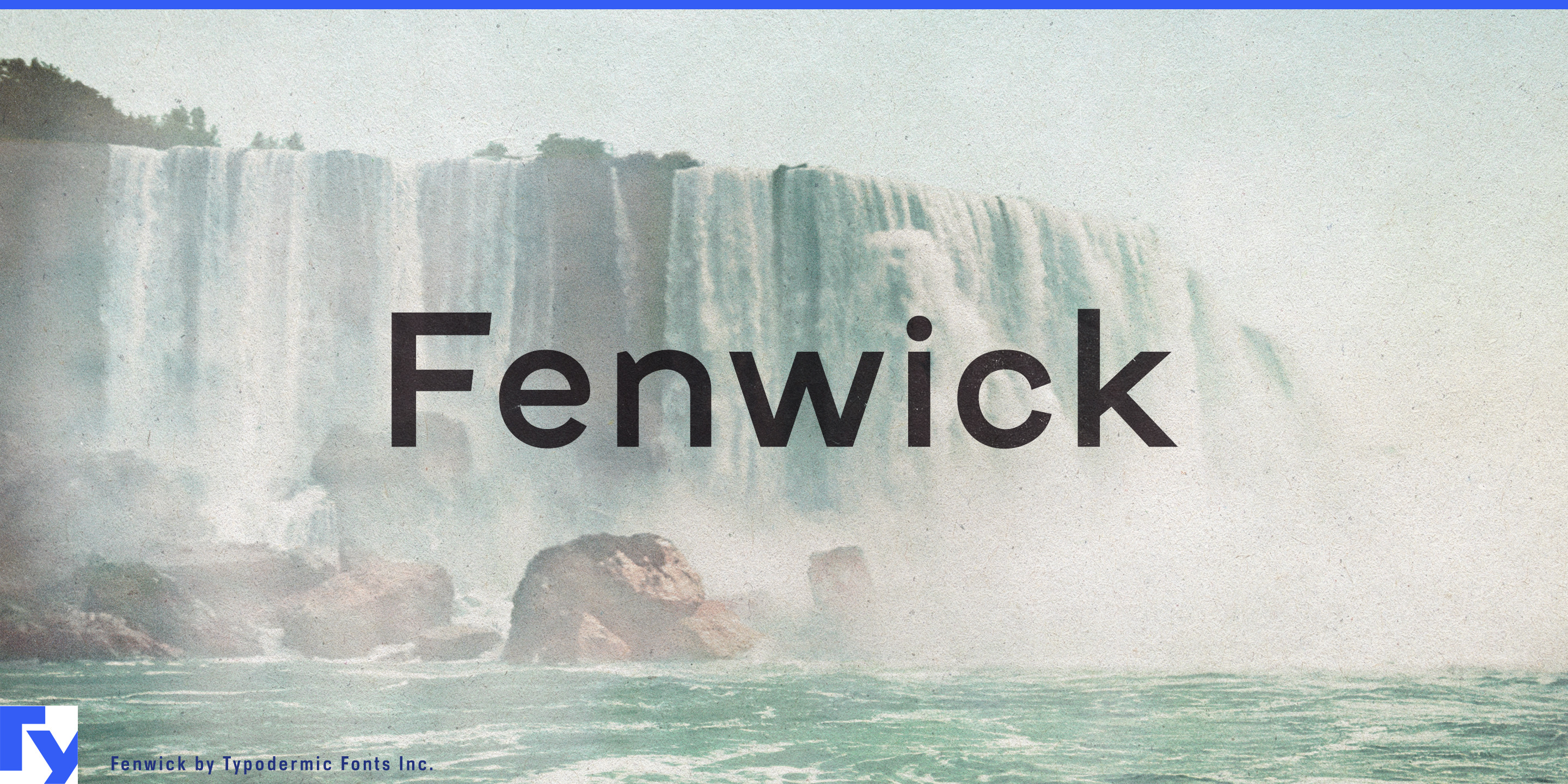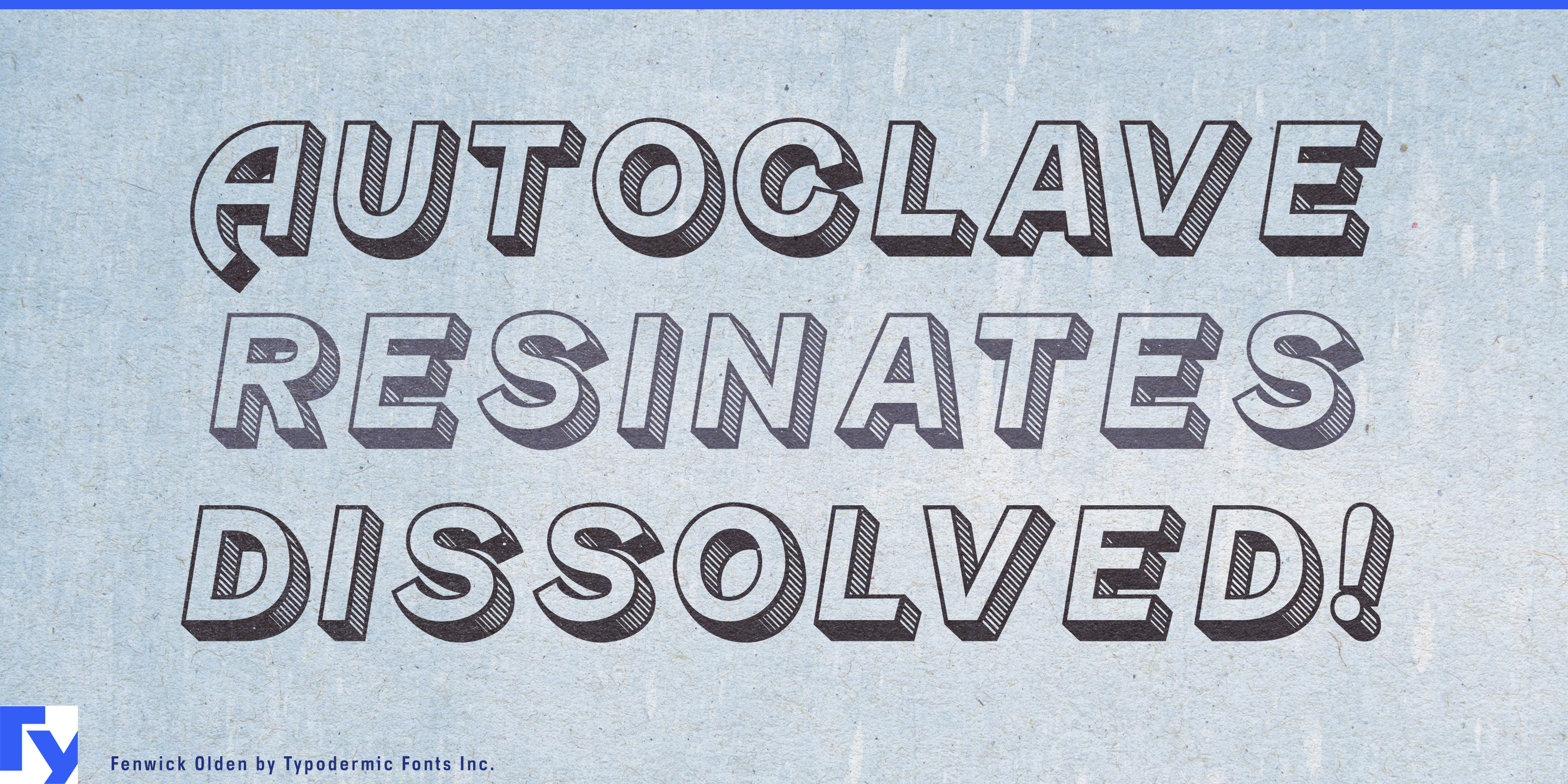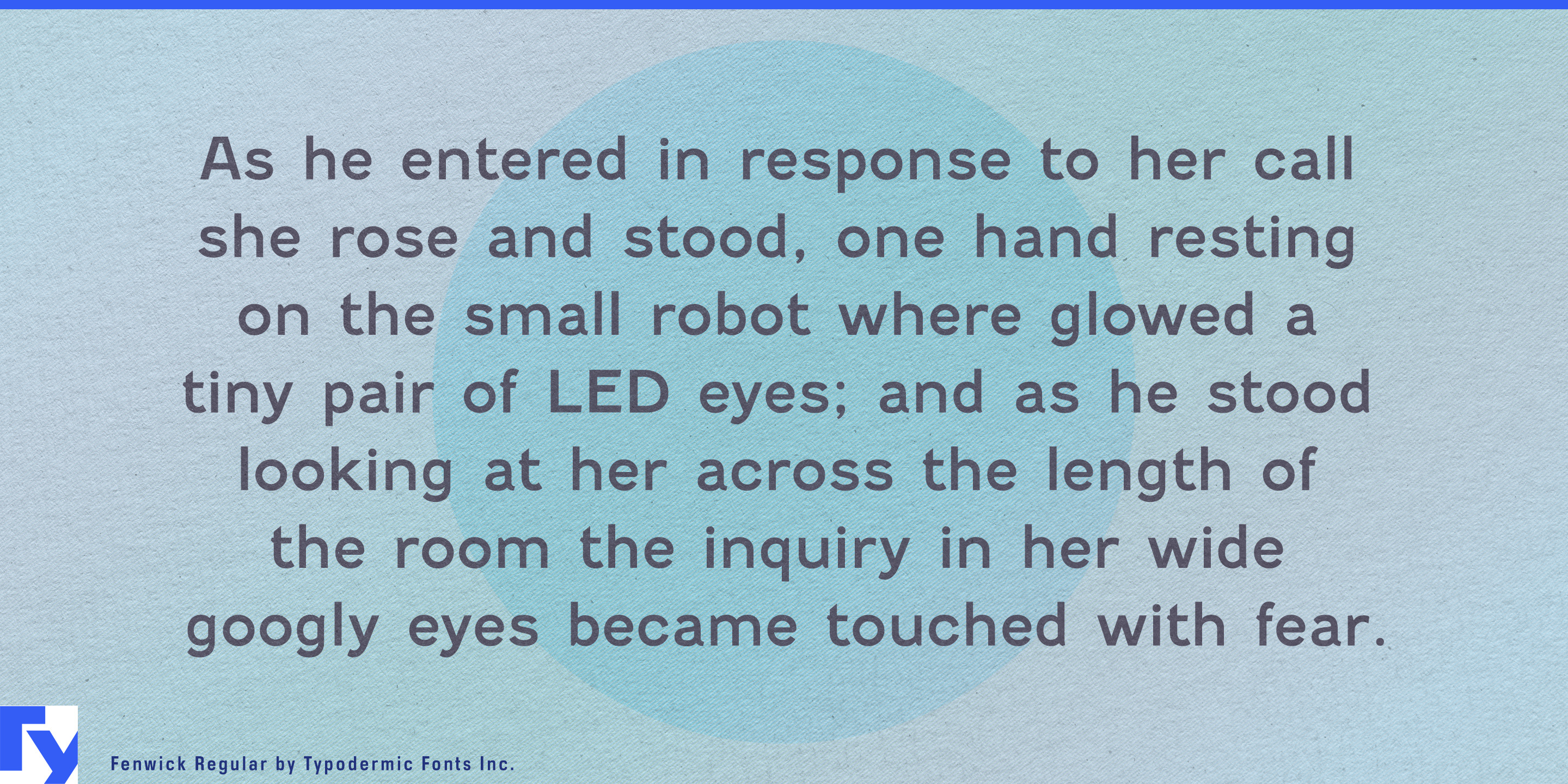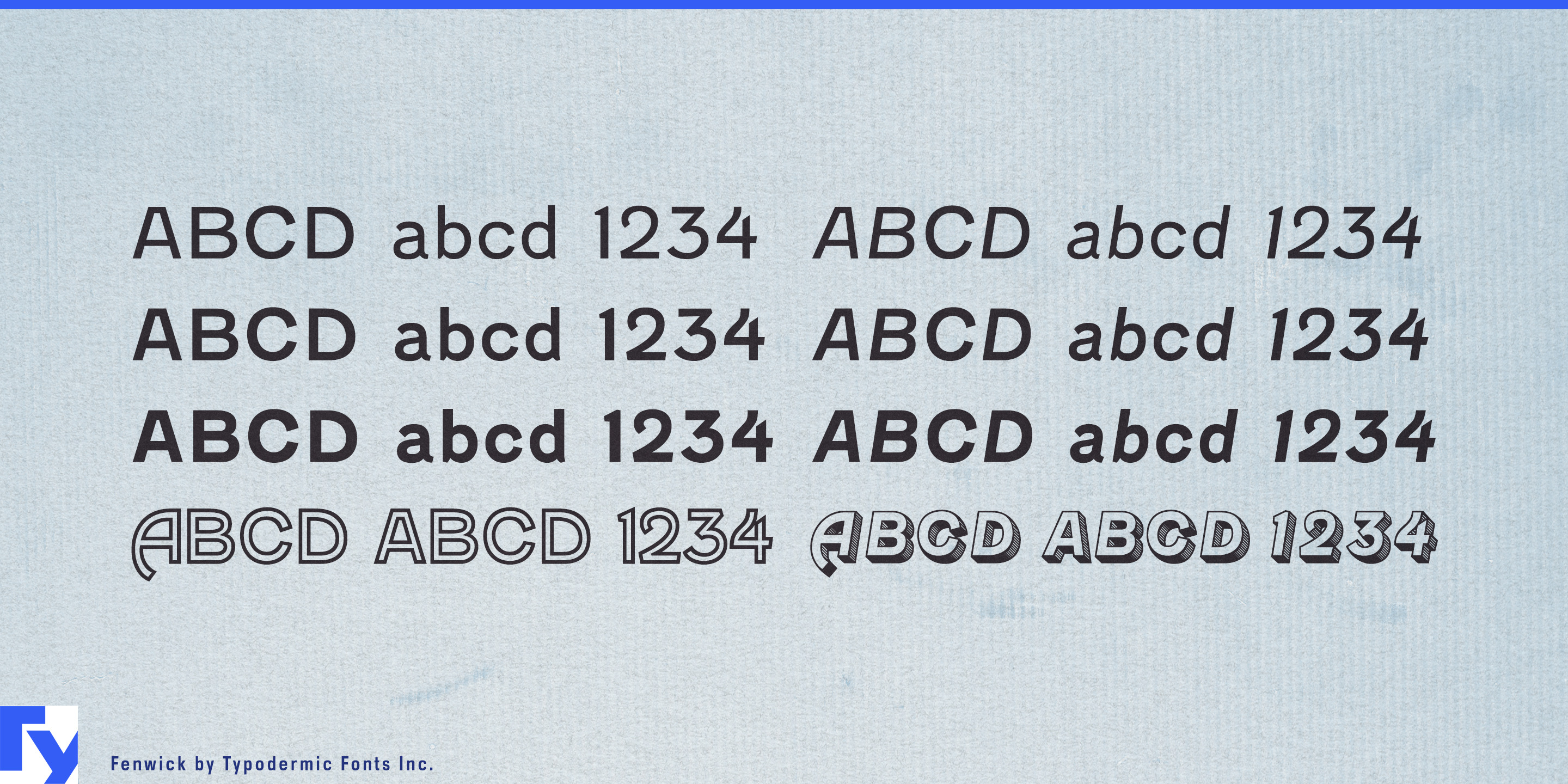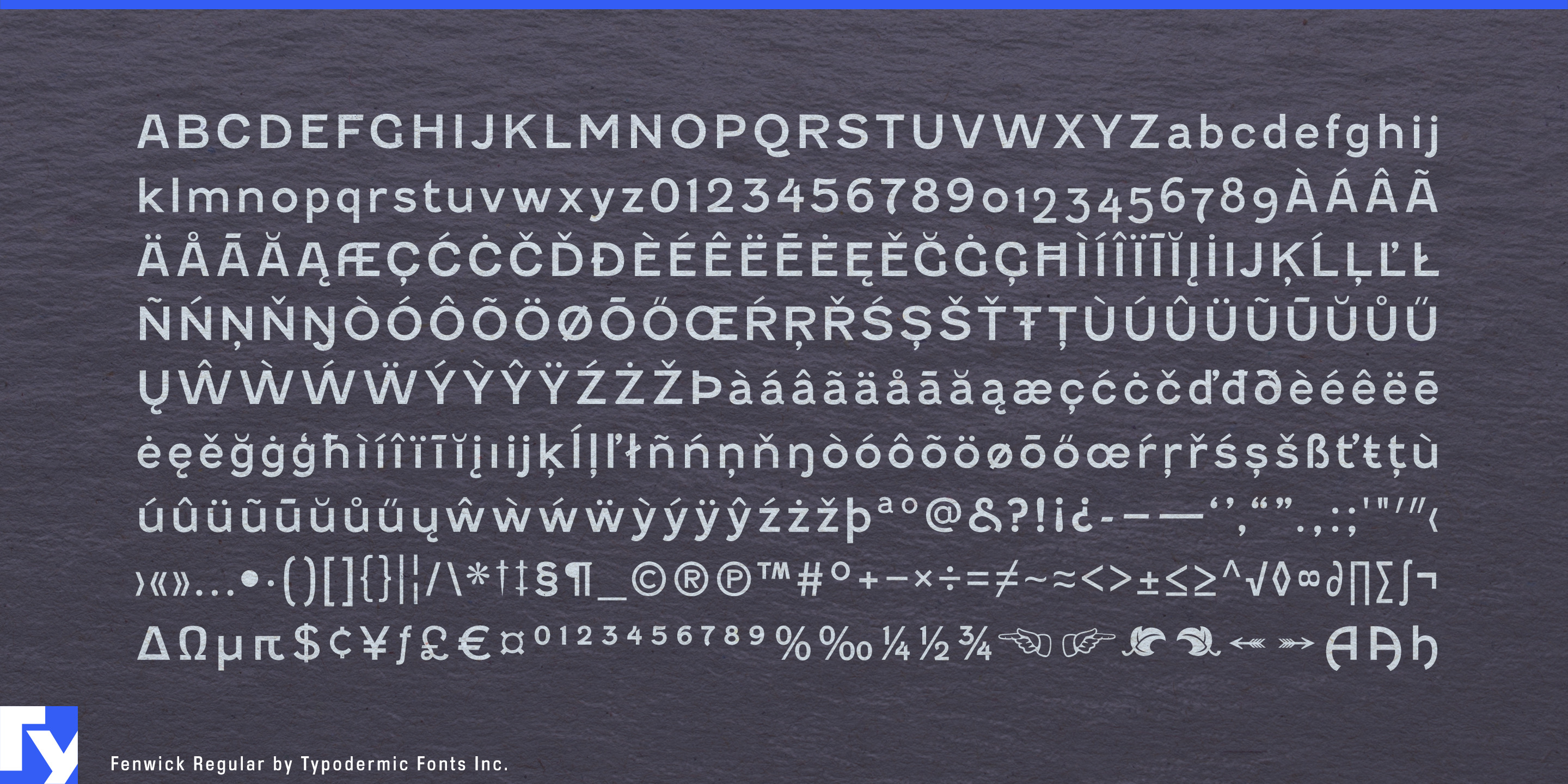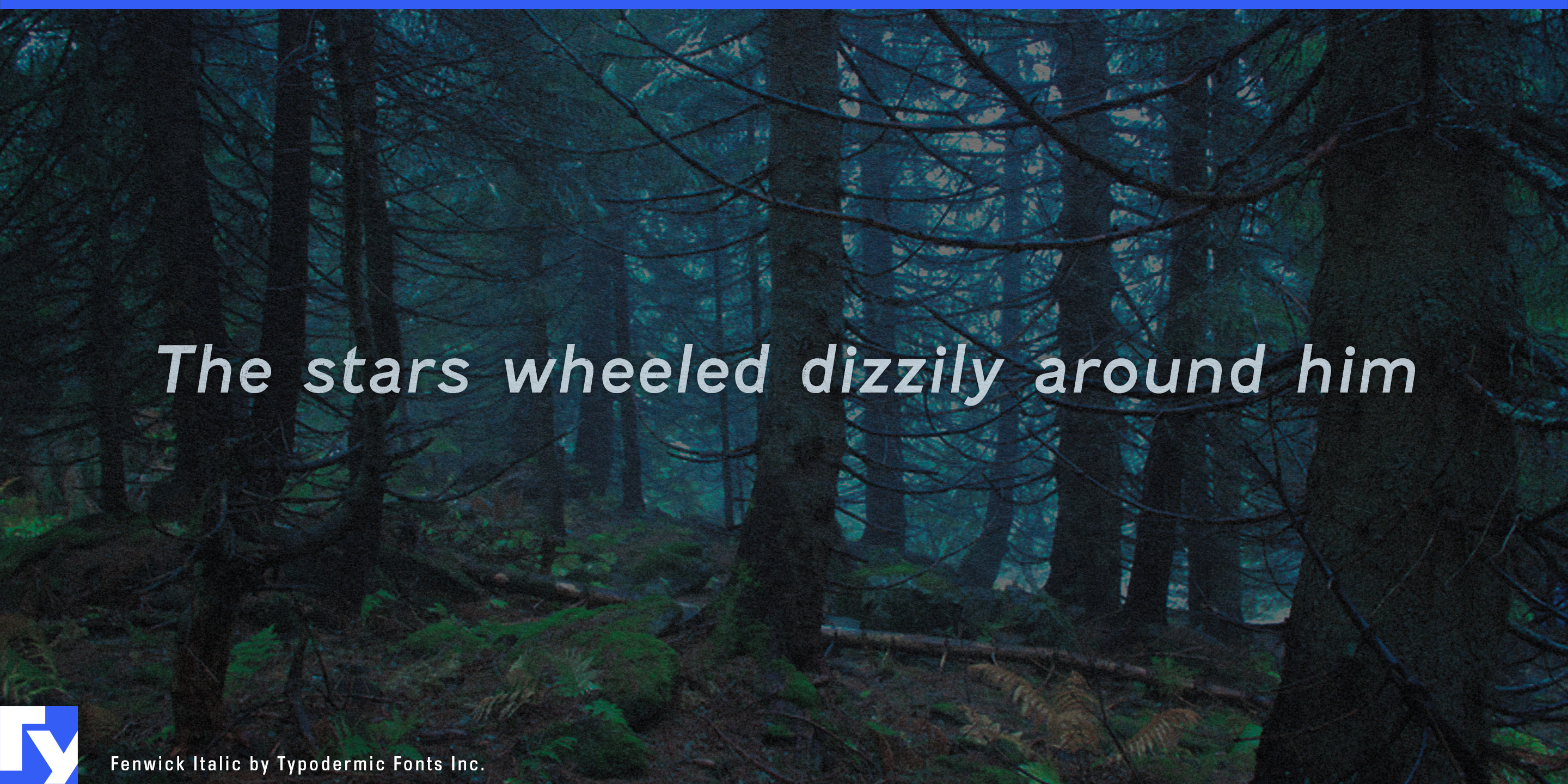
Fenwick is an unusual interpretation of late eighteenth-century style sans-serif type. Proportional old-style numerals are included. Fenwick is available in Light, Light-Italic, Regular, Italic, Bold, Bold-Italic and an all-caps engraved style.